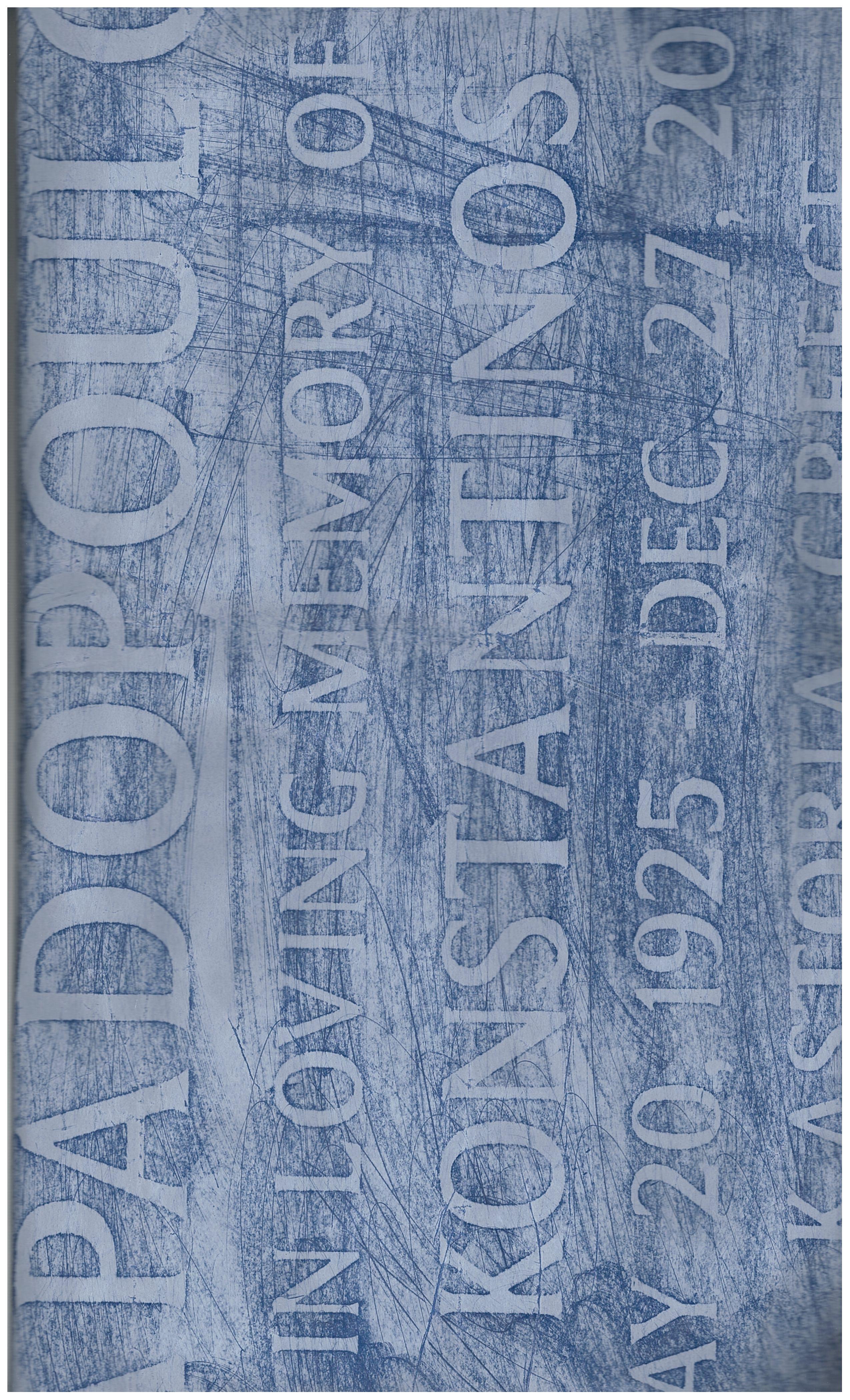
Font idenification
Hello, I’m not sure I’ve ever run into this before. It does look like it is probably a font and not hand-drawn due to the consistency of the letters.
The closest font I am aware of is Amerigo BT, which shares many of the same features.